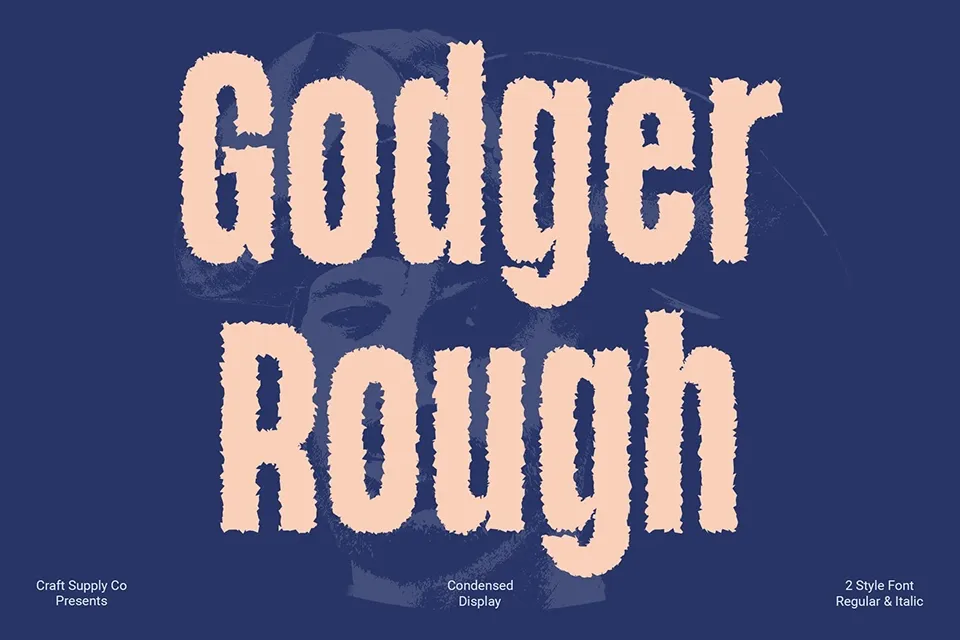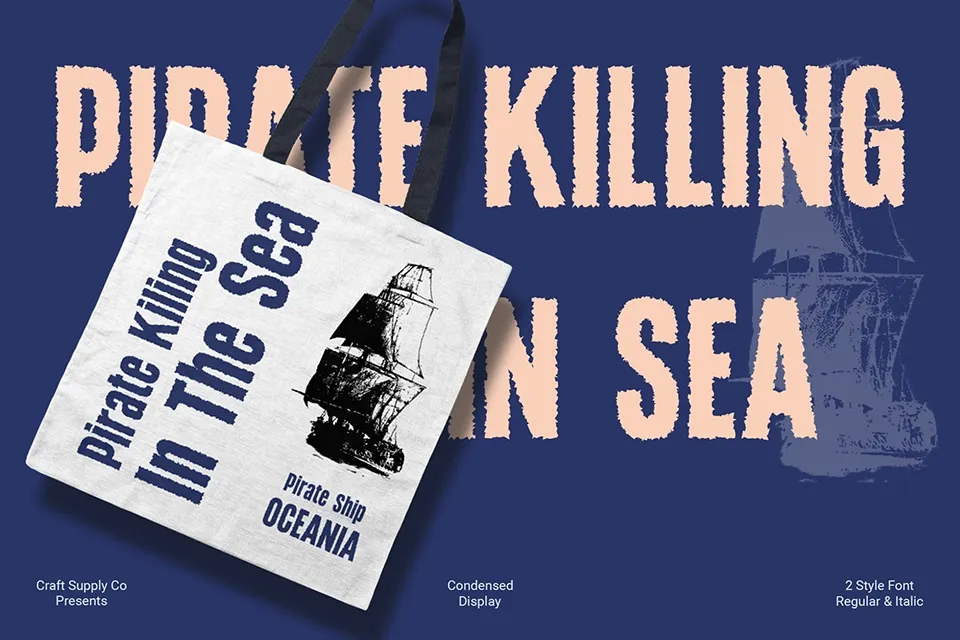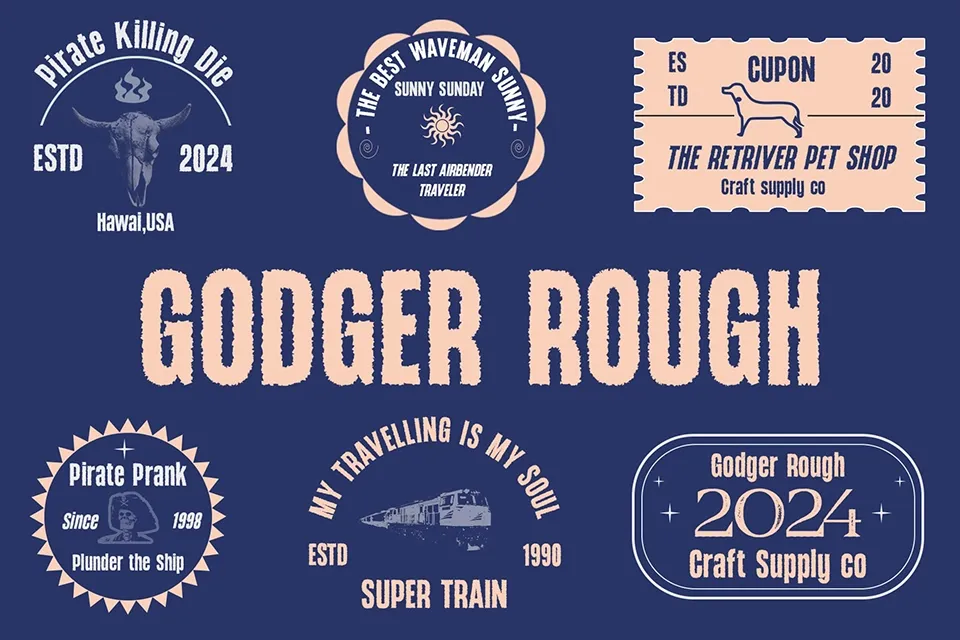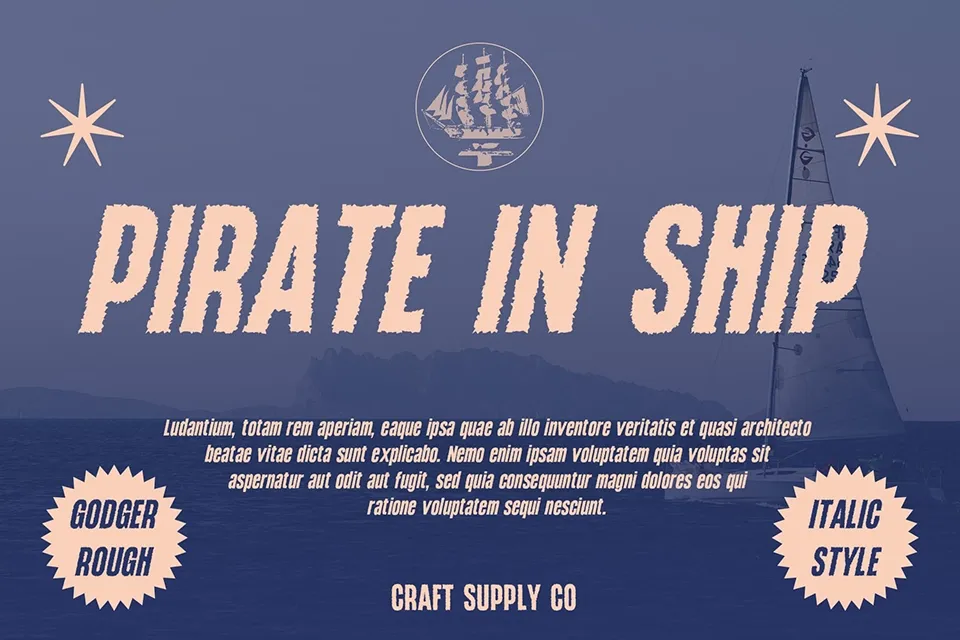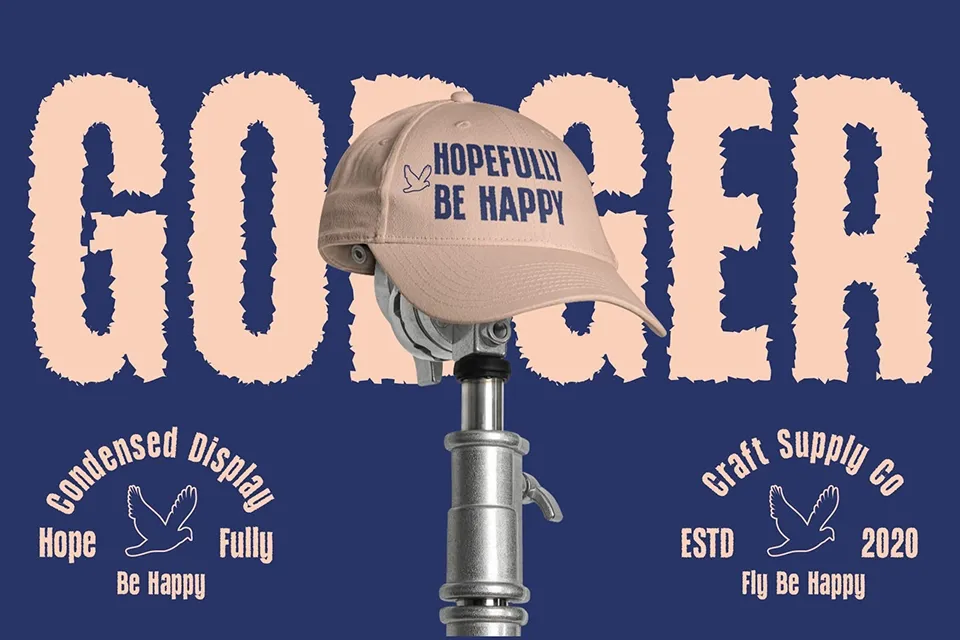
Godger Rough Font
Godger Rough Font is a bold, condensed sans serif display typeface with a distinctive rough texture effect. Its rugged, distressed appearance brings a vintage flair and strong visual impact, making it ideal for eye-catching headlines, posters, branding, and creative design projects. The font is designed to evoke strength and dynamism, perfect for projects that require a bold statement.